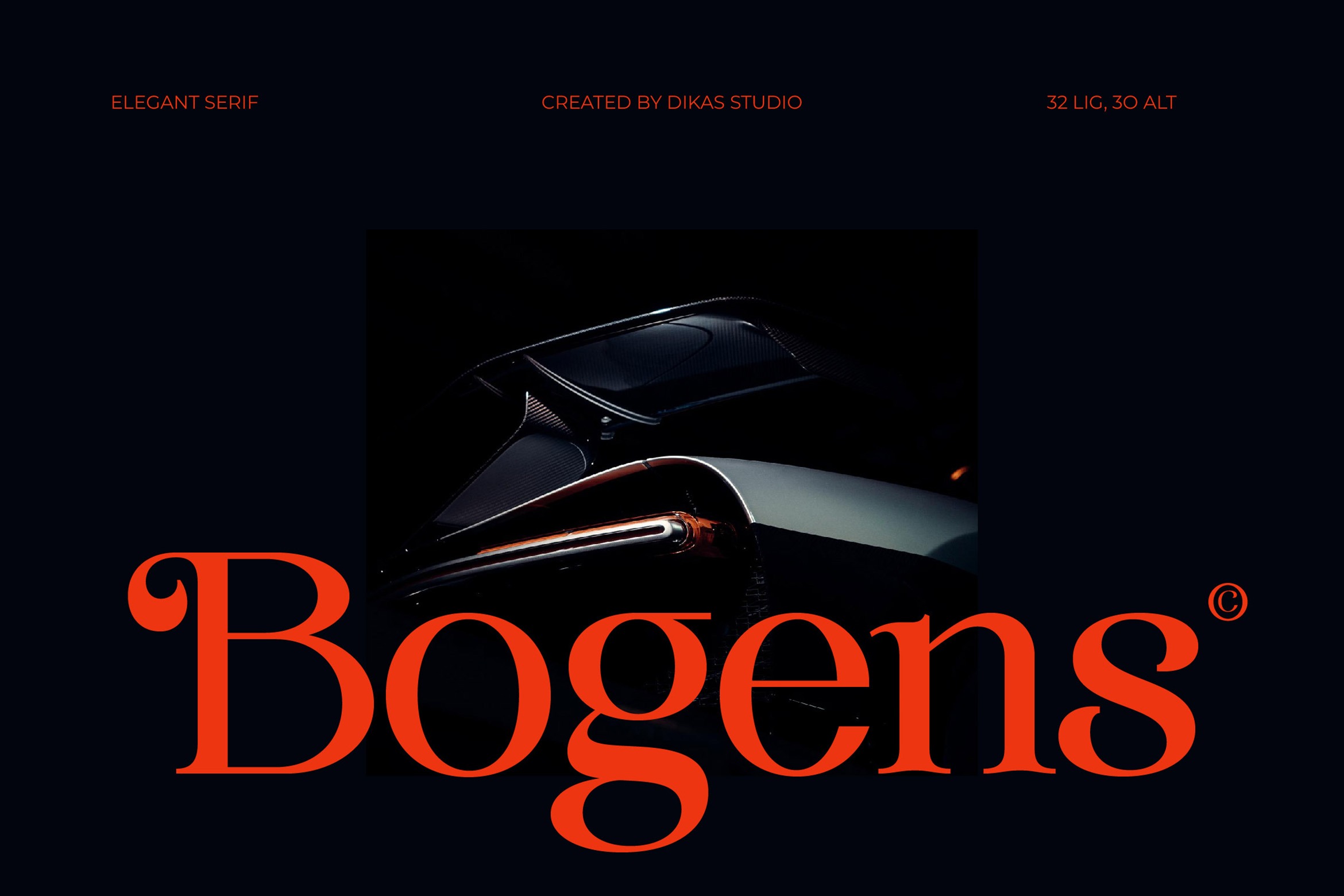
Bogens Font
Bogens Font is a distinctive and expressive font crafted to bring personality, structure, and creative energy into your projects. Bogens is an elegant serif font with a touch of vintage style. It includes smooth, flowing alternate characters that add a unique look to your design. Bogens is perfect for logotypes, posters, titles, and any project that needs standout typography. The font comes in two styles: Regular and Rough, giving you clean or textured options for your creative needs.